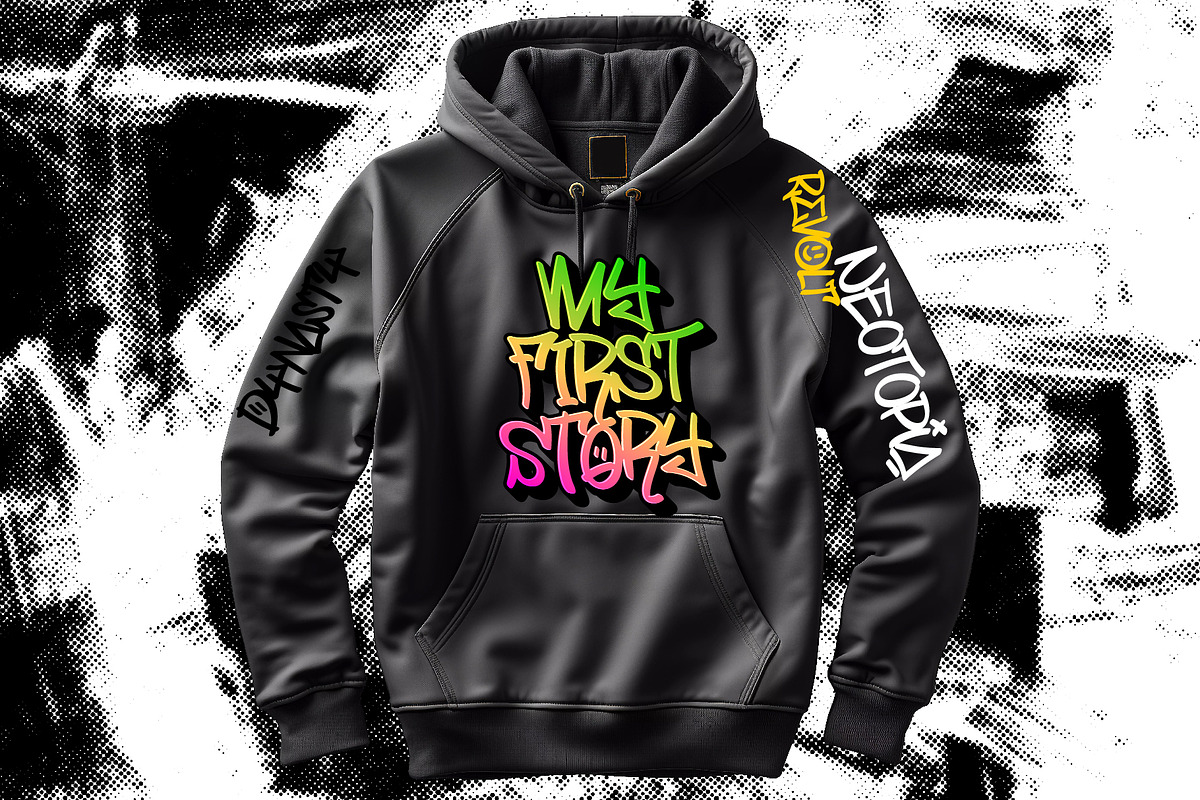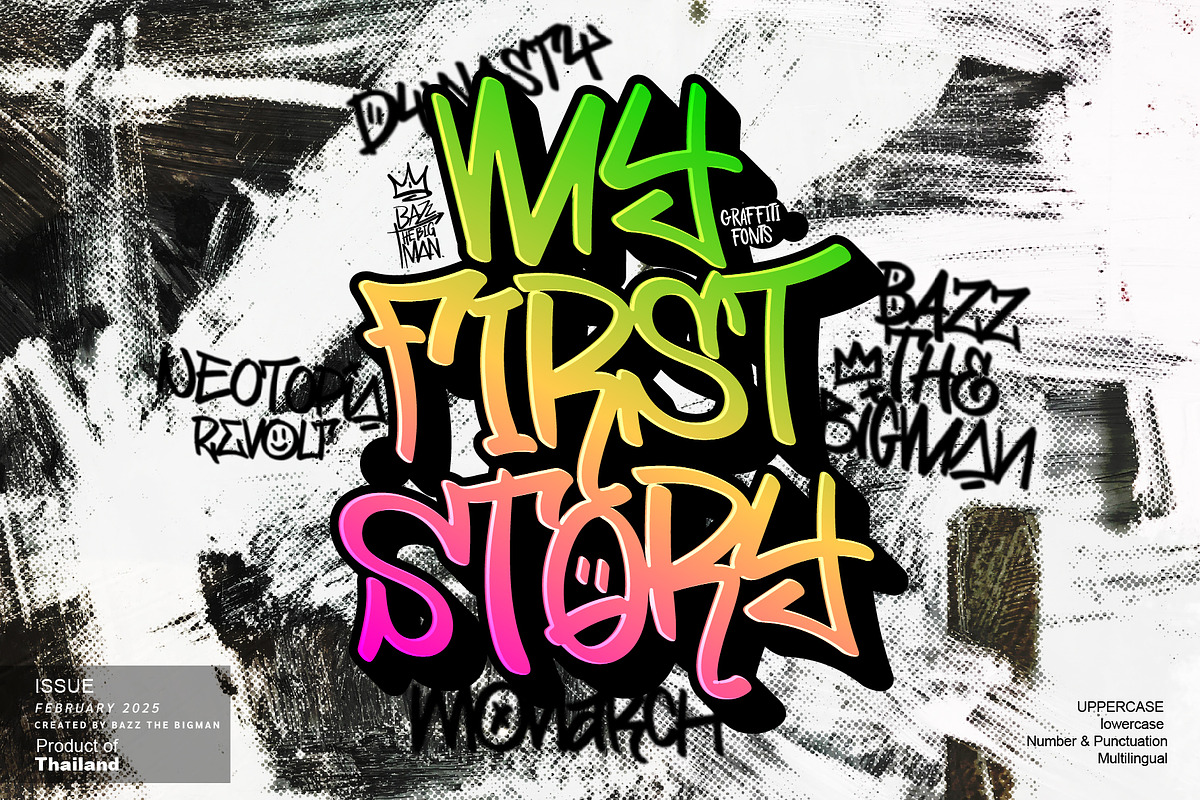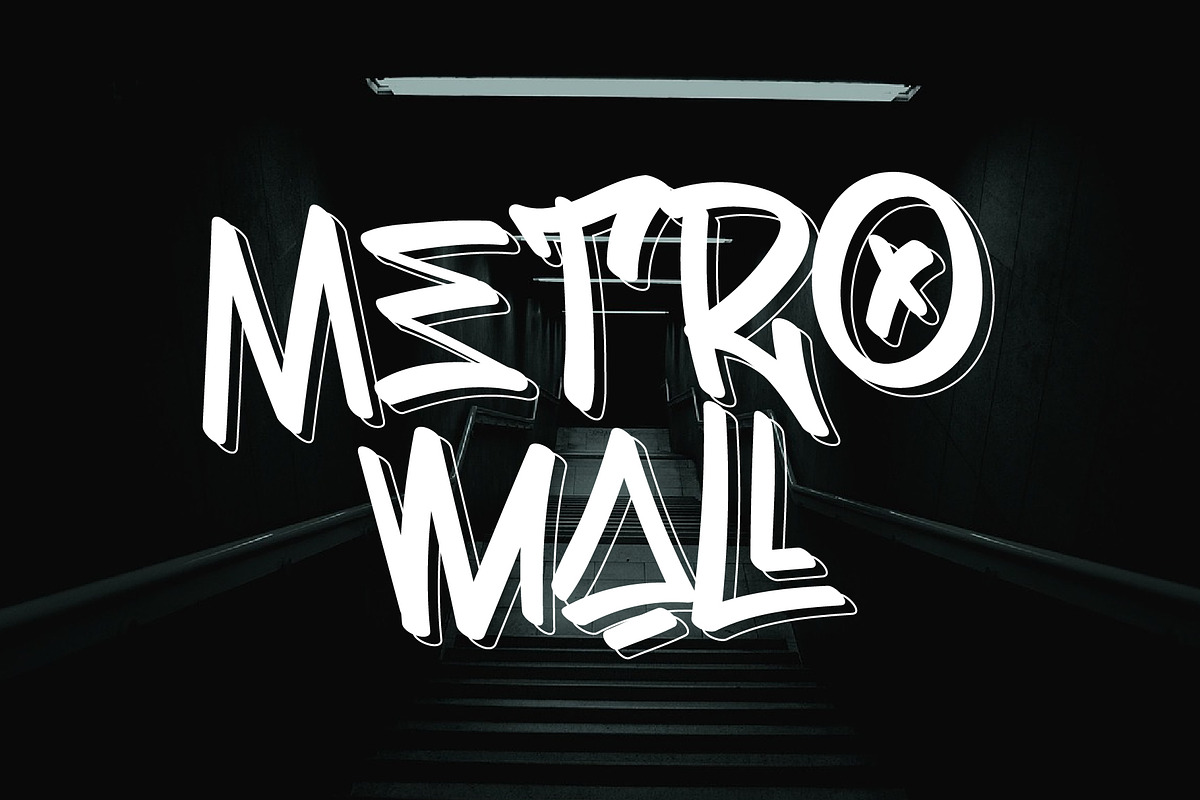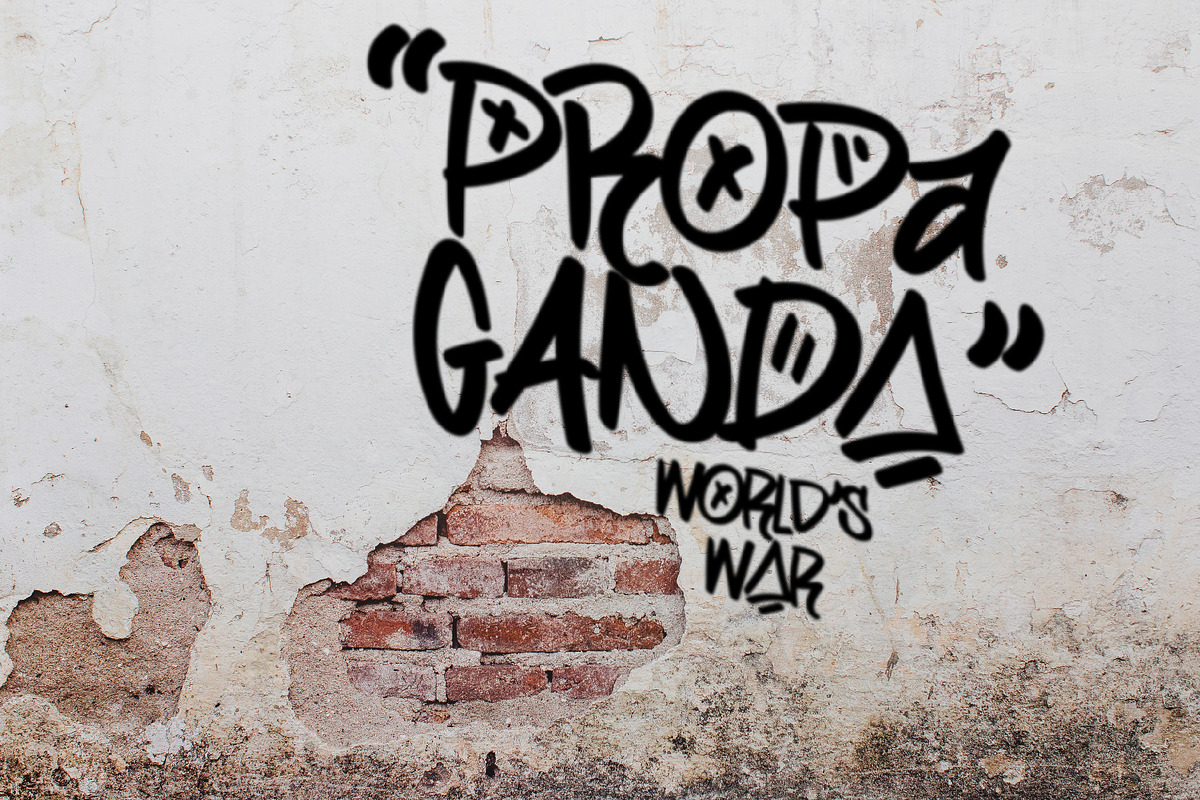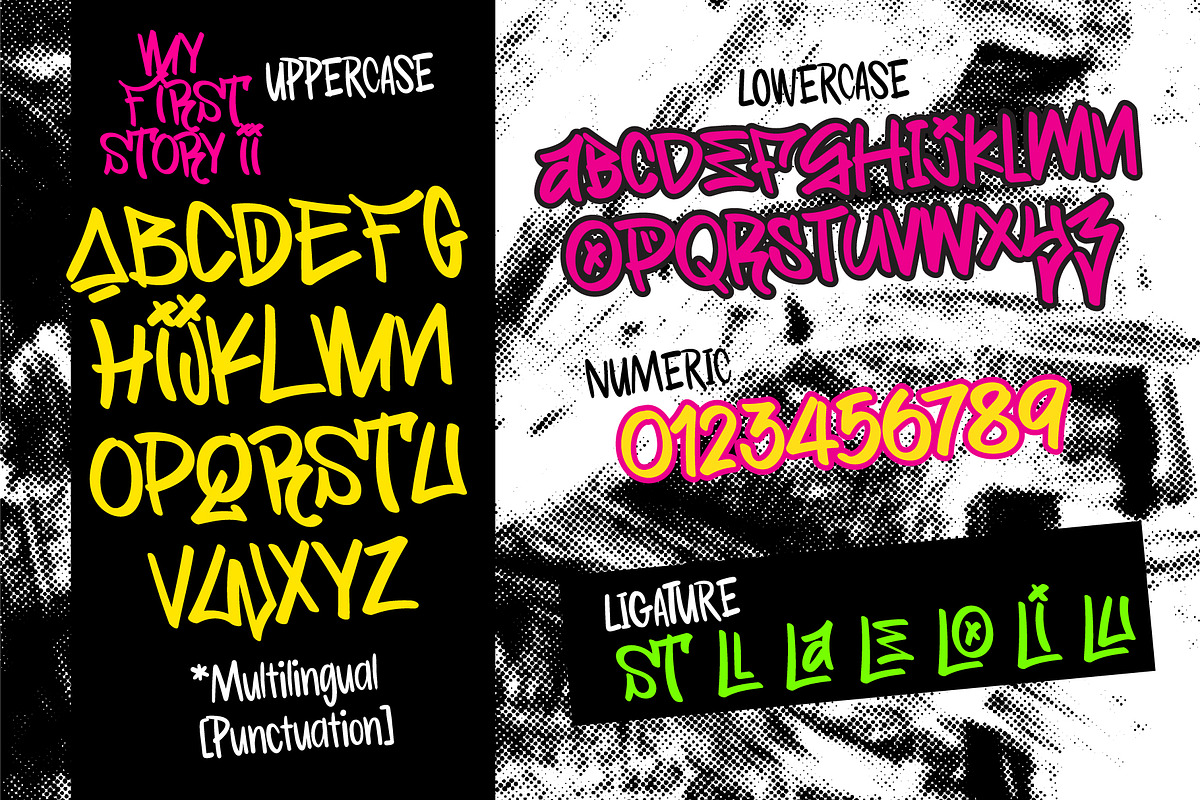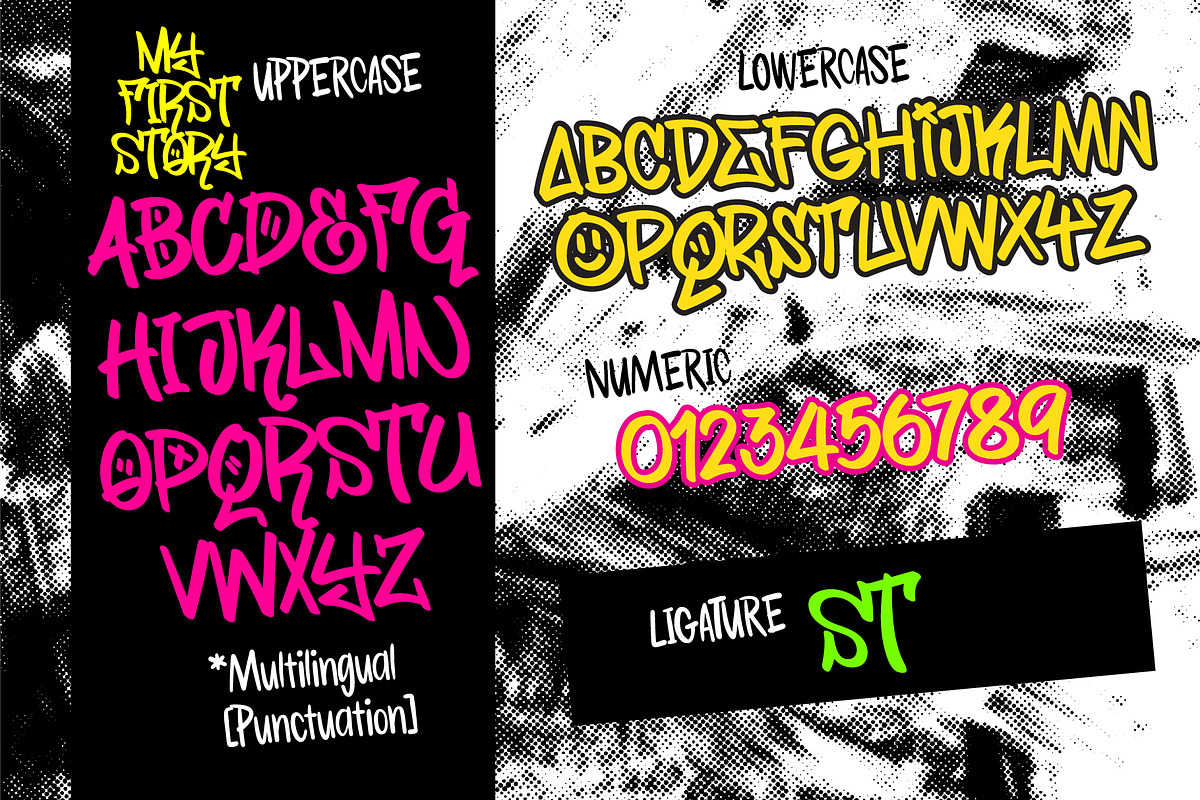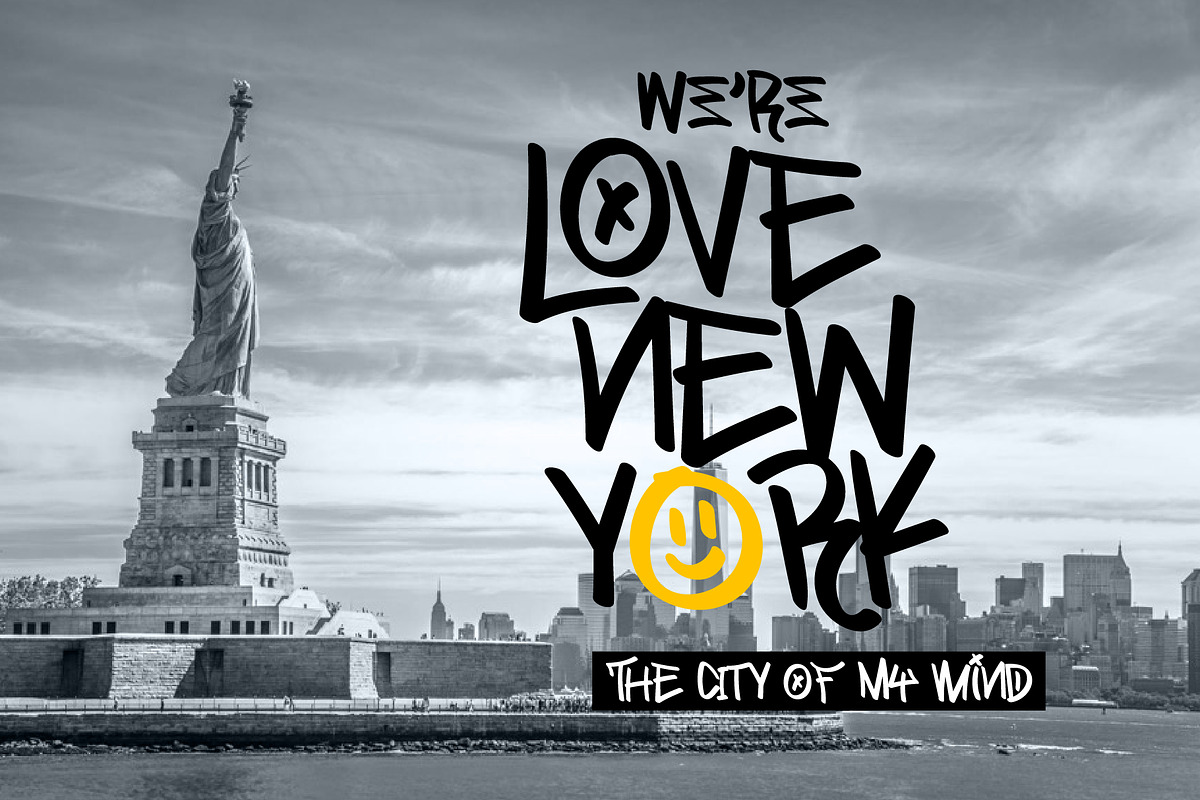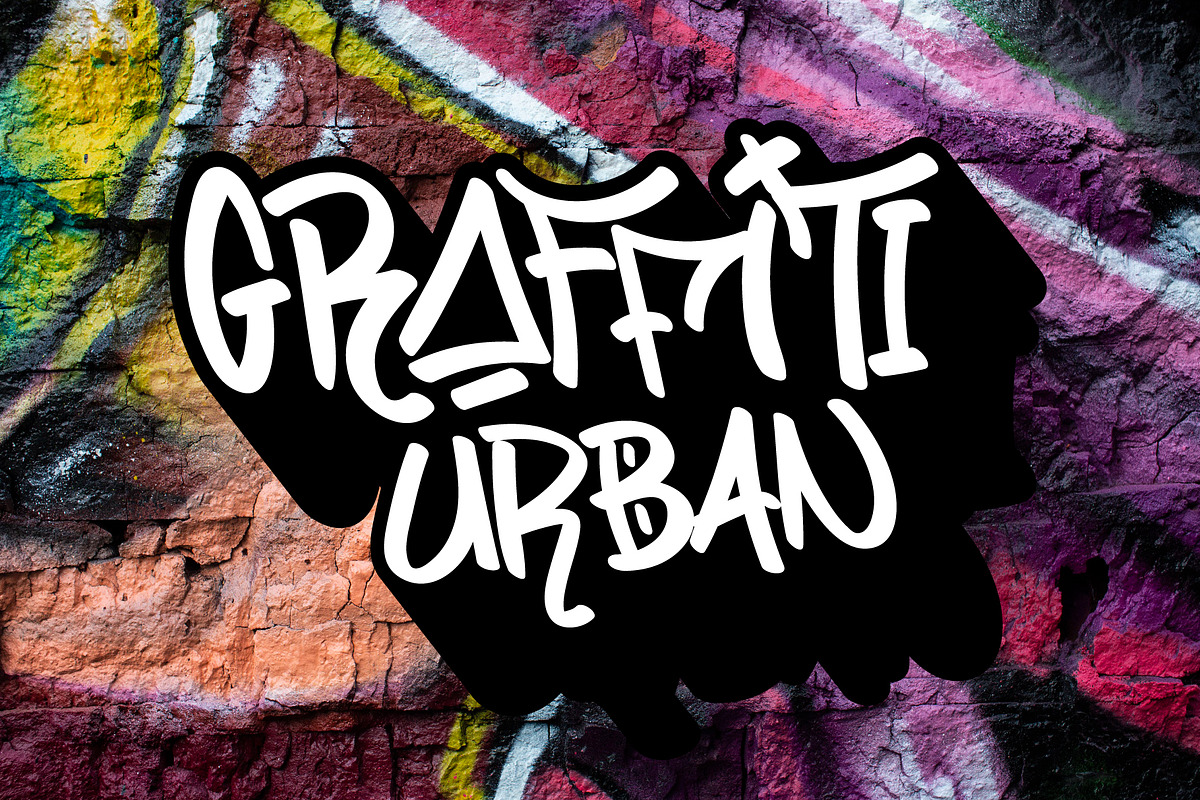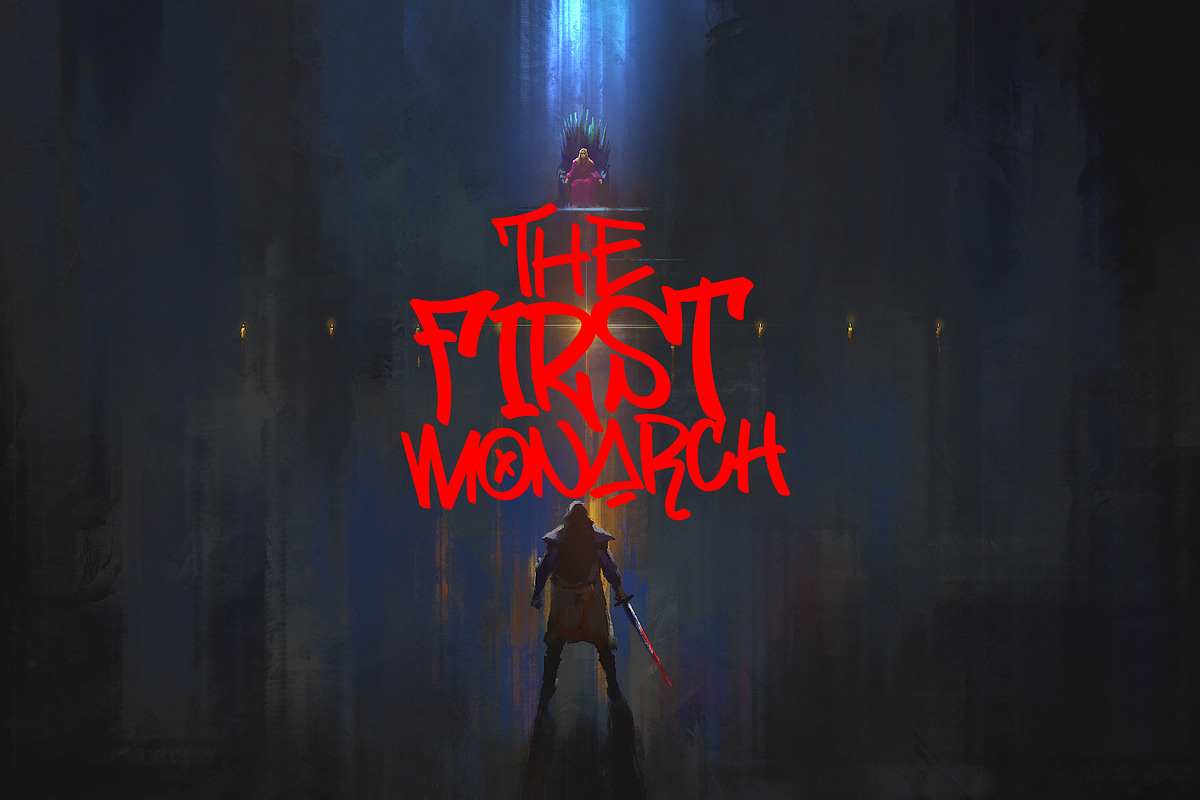
My First Story
Introducing 'My First Story', a captivating display font that masterfully unites the thrilling energy of street art with the raw charisma of graffiti. Perfect for enhancing designs from t-shirts to sportswear, it bellows an urban dynamic that is impossible to ignore. The fluidity of this font adds a visually striking edge to logos and advertising, while its undeniable street-wise aesthetics bring an urban vibe to clothing designs and beyond. Living at the intersection where creativity meets style, 'My First Story' is the font that gives voice to your designs.